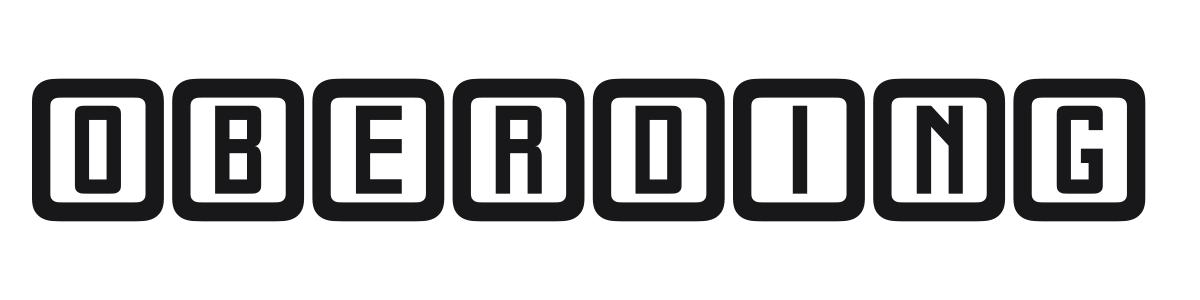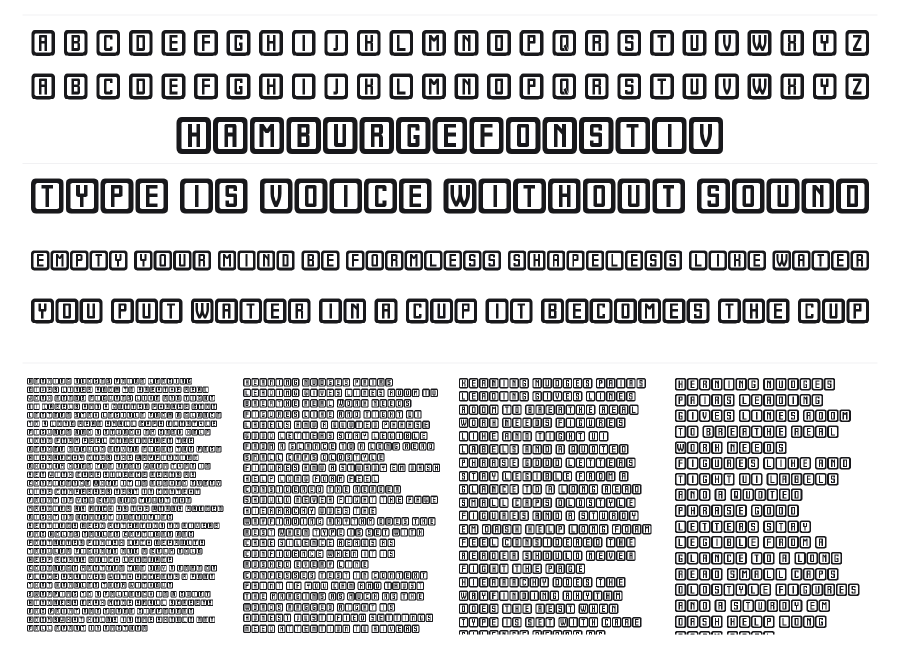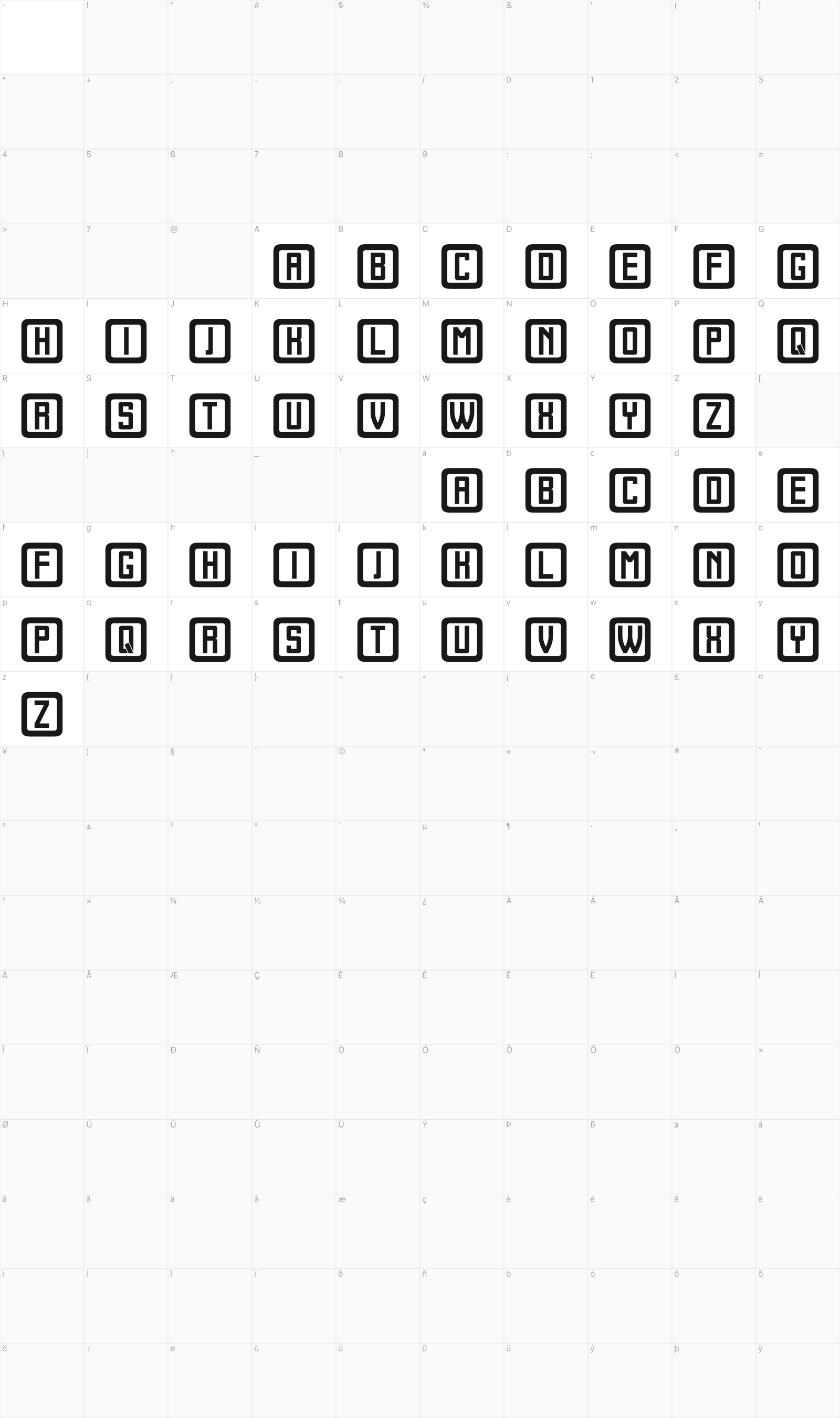
Oberding
Oberding is a bold display font where every character sits inside its own rounded-square tile, like letters pressed into a game board or LED panel. The monoweight geometric strokes and uniform enclosures give it a systematic, retro-tech rhythm that works well at large sizes. It has a friendly edge from the rounded corners, keeping it from feeling purely industrial.